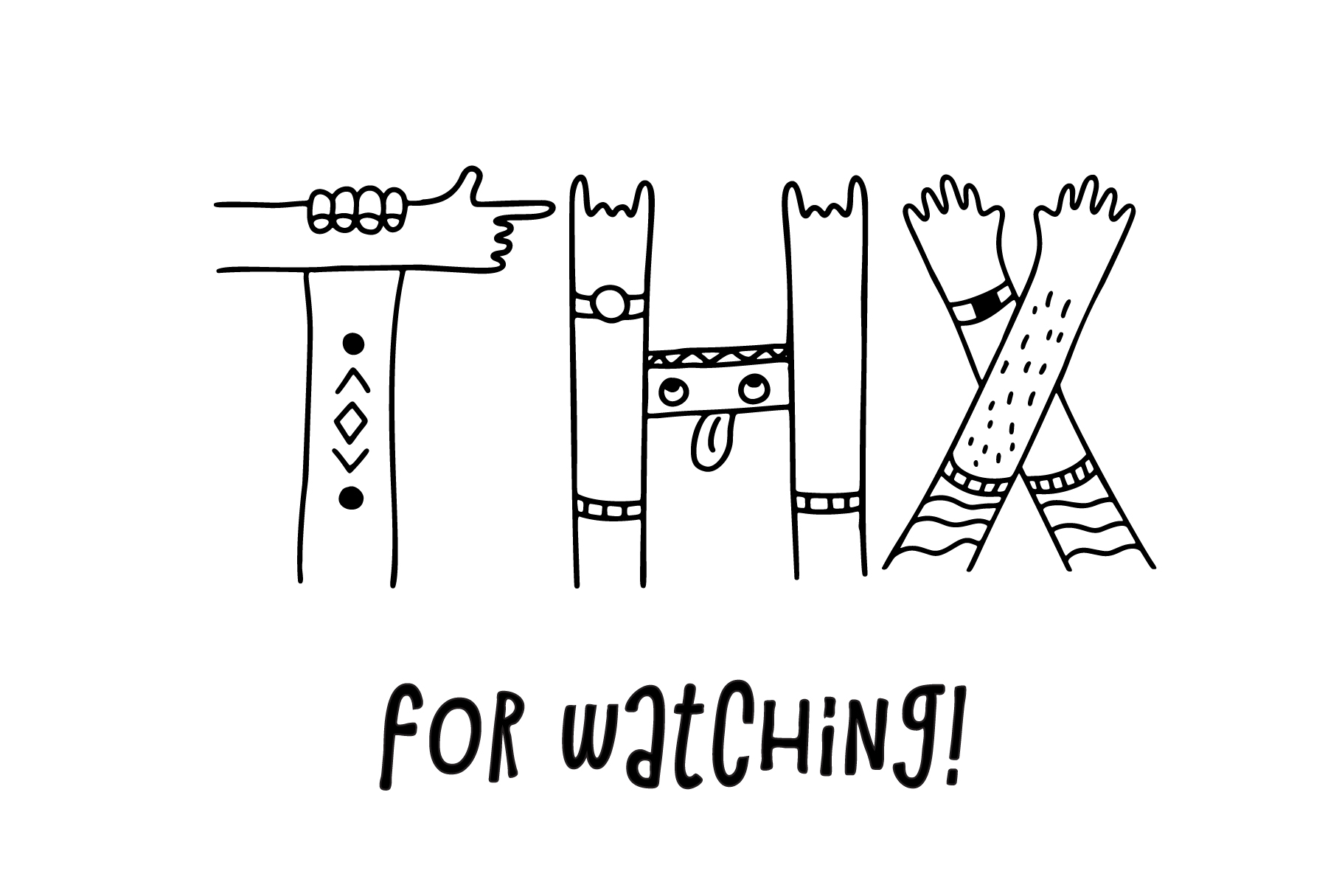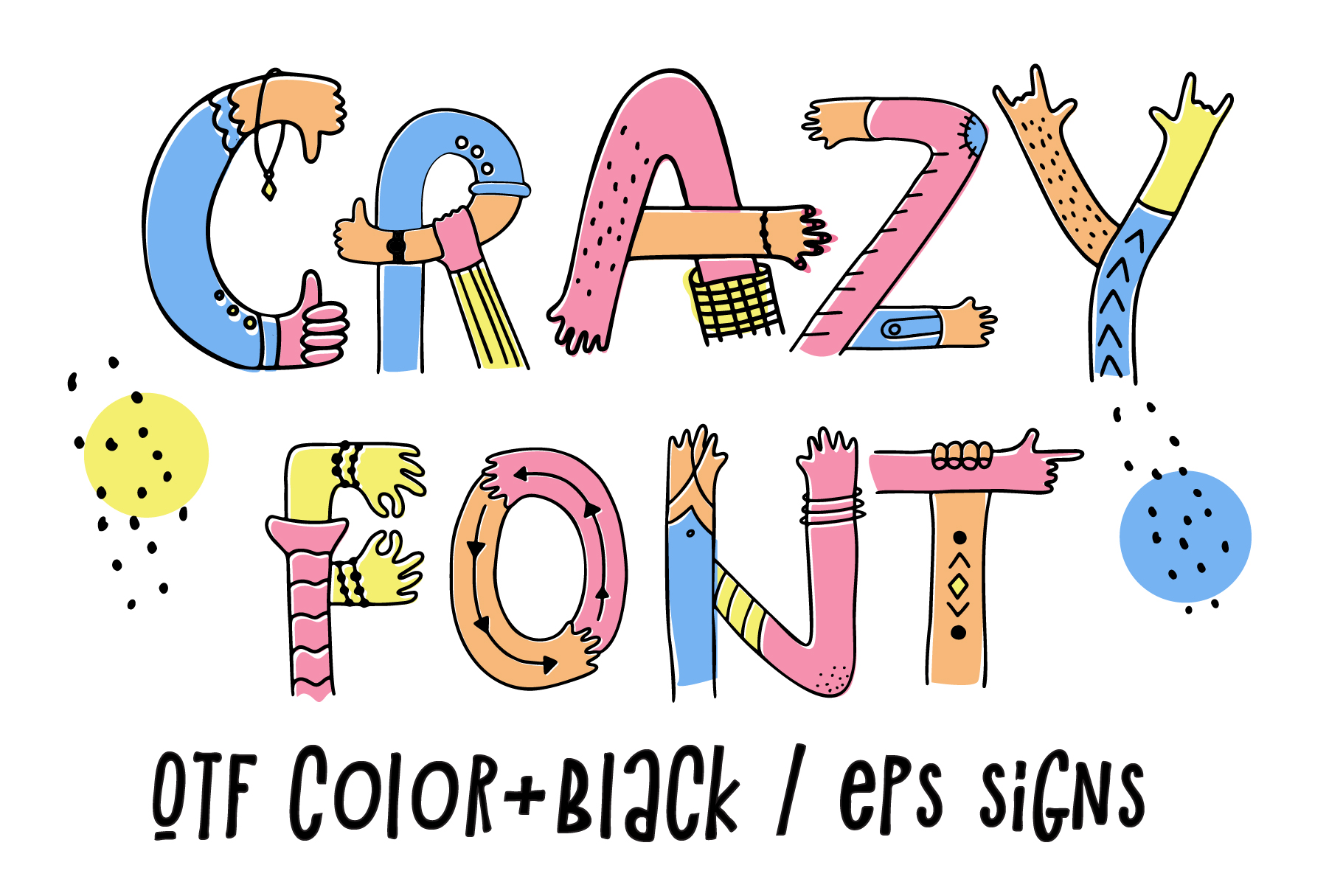
My new crazy color font
Hands up color font
OpenType-SVG Font was designed with Fontself Maker in Illustrator CC. Contains only uppercase letters and digits.